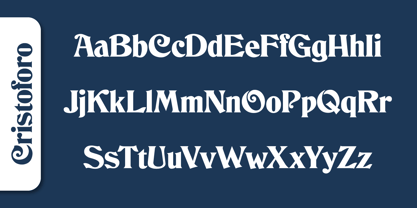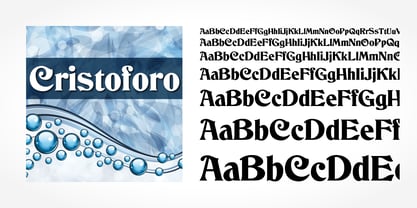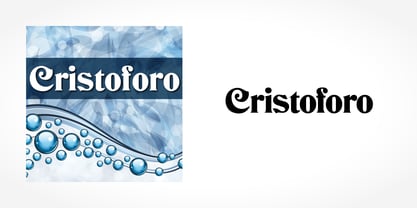
Cristoforo Font
Cristoforo Font is perfect for Renaissance cultural exhibitions, Italian heritage projects, classical art museum materials, historical exploration narratives, maritime discovery campaigns, vintage navigation designs, traditional cartography presentations, European cultural institutions, scholarly historical research, and authentic period reproductions.
What makes Cristoforo Font so exciting is its magnificent embodiment of Renaissance exploration and Italian cultural heritage that captures the adventurous spirit of historical discovery and the timeless elegance of Italian artistic tradition through masterfully crafted typography. This historically inspired typeface features classical letterforms with Renaissance proportions and exploration-influenced character variations that immediately convey adventure, cultural sophistication, and the transformative power of historical discovery. The font's classical construction and heritage-rich aesthetic create an instant sense of historical authenticity and cultural refinement, making it ideal for projects that need to communicate historical exploration, Italian cultural heritage, and the life-enriching power of cultural discovery to audiences seeking authentic historical experiences and meaningful connections to Renaissance tradition.
The Cristoforo Font family typically includes multiple classical weights and Renaissance styles, often featuring light through bold variations along with elegantly flowing italic versions and historically appropriate alternatives. Renaissance font collections frequently offer additional period elements such as classical ornaments, historical symbols, and Italian decorations that enhance the authentic heritage aesthetic and provide designers with comprehensive tools for creating genuinely respectful and historically accurate communications.
The historical nature of Cristoforo Font makes it particularly effective for targeting demographics that value cultural heritage and historical exploration in their educational and cultural pursuits. Museum curators and cultural educators will find this font especially valuable for materials that must establish immediate historical credibility and connect with audiences seeking authentic Renaissance experiences and meaningful Italian cultural engagement.
What sets Cristoforo Font apart is its ability to convey historical authenticity while maintaining the accessibility necessary for effective contemporary educational and cultural communication. This balanced characteristic makes it suitable for both scholarly historical applications and public cultural contexts where projecting historical expertise and maintaining broad cultural appeal must work together harmoniously.
Professional designers recognize that Cristoforo Font brings invaluable historical credibility to projects across industries including cultural heritage, museum curation, educational institutions, and historical preservation. Its classical character and exploration appeal make it essential for organizations whose mission centers on preserving Italian heritage, promoting historical understanding, and creating meaningful connections between Renaissance traditions and contemporary cultural appreciation.
The thoughtfully crafted historical authenticity of Cristoforo Font ensures consistent heritage messaging across all Renaissance-focused communication applications while honoring the fundamental importance of cultural respect and authentic representation in Italian historical typography.